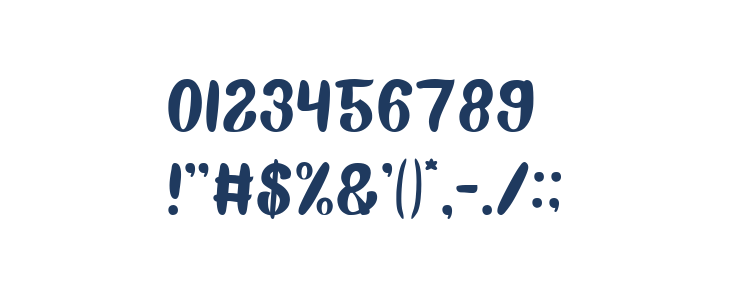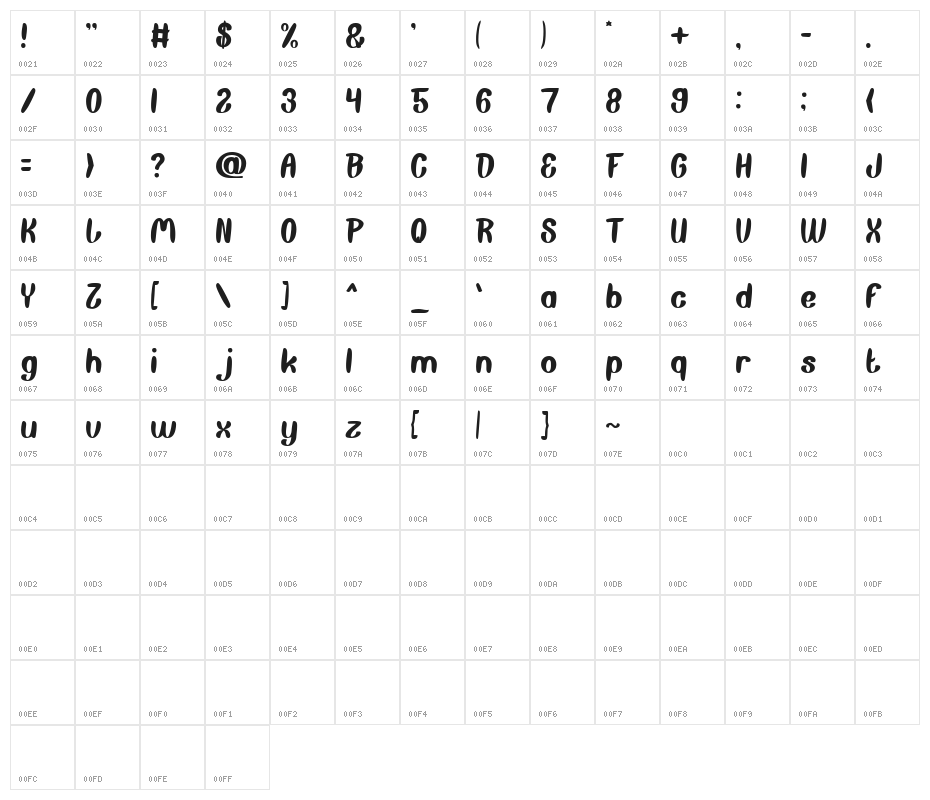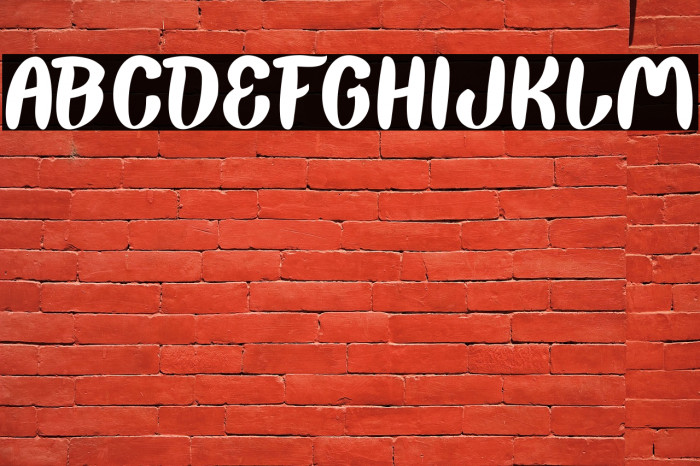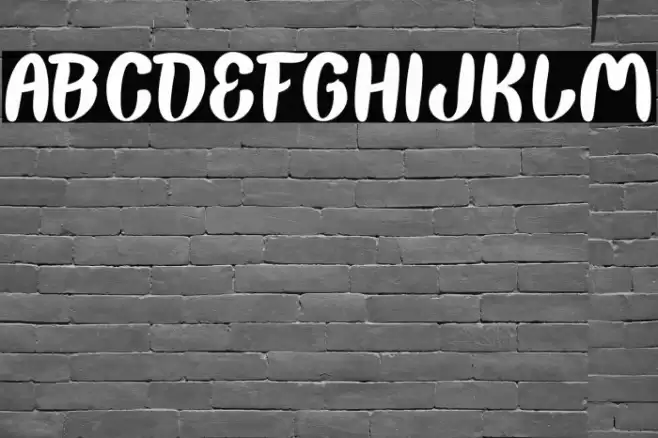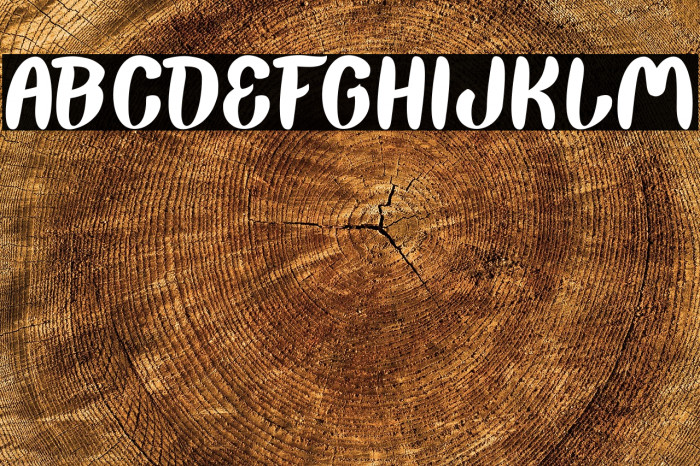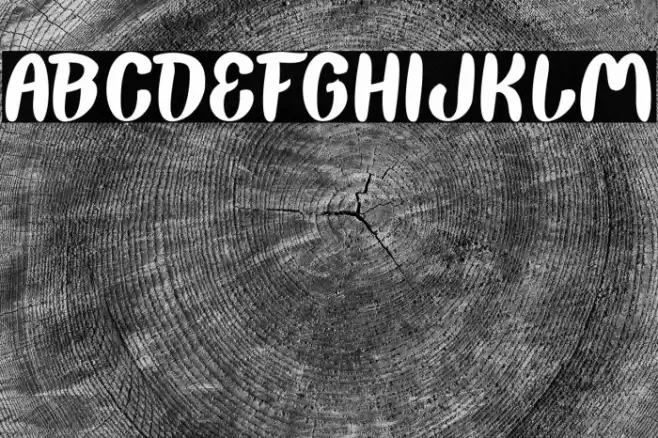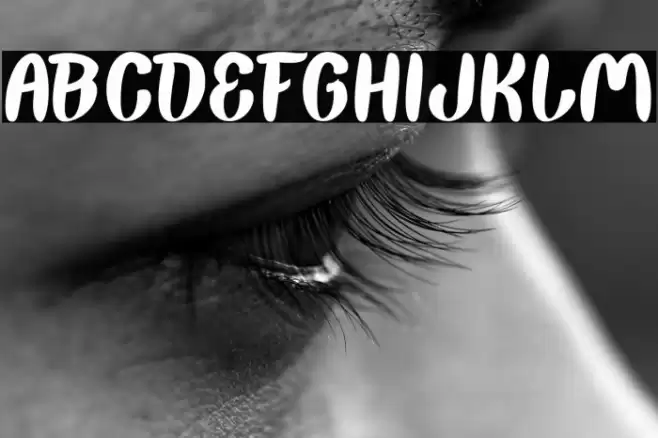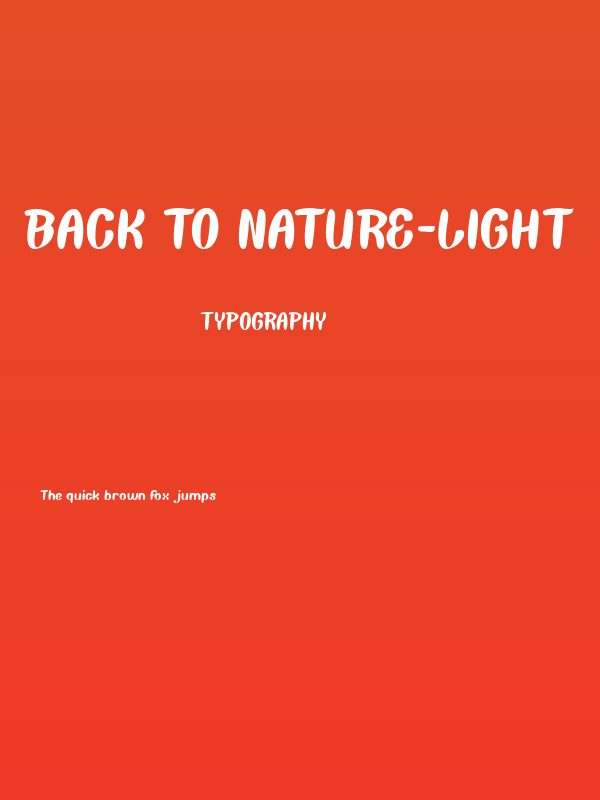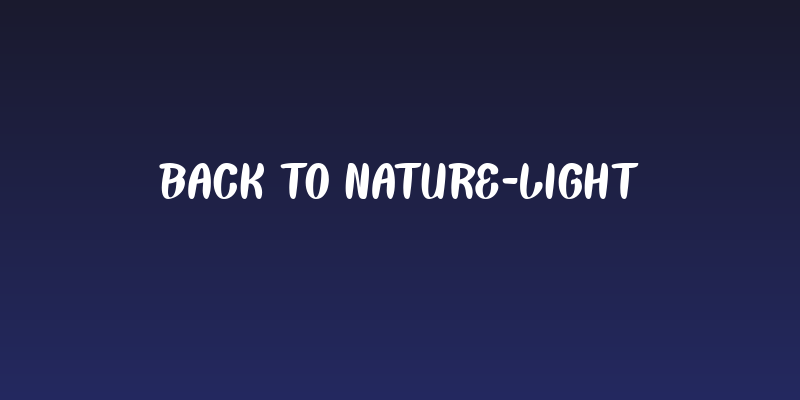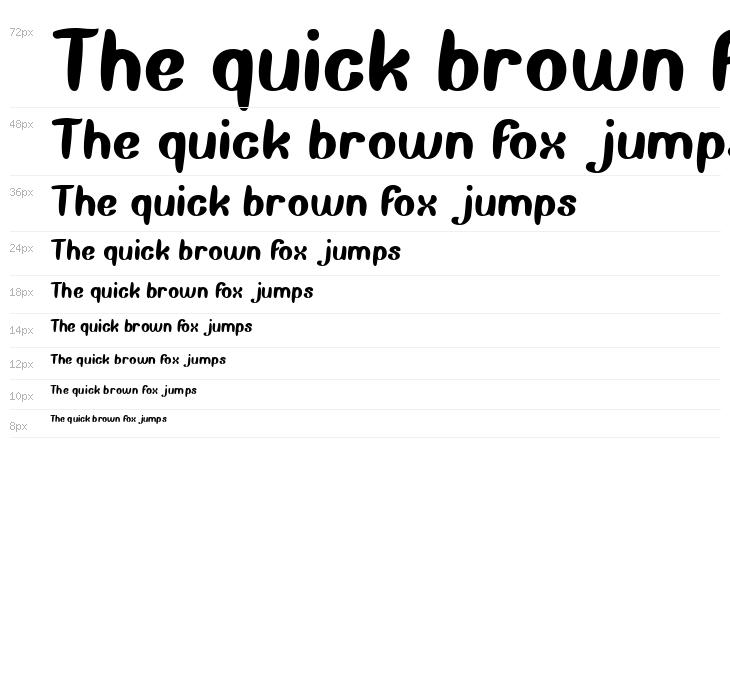
Back To Nature-Light Font
Back To Nature-Light Description
This playful and bold font features rounded, thick strokes that give it a friendly and approachable appearance. The letters are slightly slanted, adding a dynamic and informal touch. The uppercase and lowercase characters maintain a consistent style, with smooth curves and a uniform thickness that enhances readability. Numbers and special characters are designed with the same playful aesthetic, making them stand out while remaining cohesive with the overall design. This font is perfect for projects that require a fun and engaging look.
| Overall Style | Playful, Informal |
| Proposed Projects | Ideal for children's books, playful branding, event invitations, and social media graphics. |